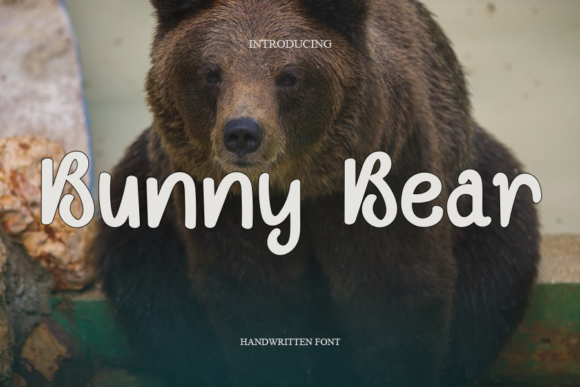
Discover the Whimsy of Bunny Bear Font
As a designer, there’s nothing quite like that moment when an idea clicks – the spark of creativity that sets your imagination ablaze and sends your mind racing with possibilities. For me, it’s often when I stumble upon the perfect font to bring my vision to life. And, let me tell you, Bunny Bear Font is one such find that has left me beaming with excitement.
This lovely script font is designed to add a touch of whimsy and playfulness to your creative projects. Featuring charming, dancing characters that seem to leap along the baseline, Bunny Bear Font is sure to elevate your designs and make them stand out in a crowd. Whether you’re working on a children’s book, a branding project, or a social media campaign, this font is a valuable addition to your design toolkit.
Bunny Bear Font Key Features
- Font Family: Bunny Bear Font is a unique, hand-drawn font designed for creative and whimsical purposes.
- Unique Characteristics: Bunny Bear Font features a playful, cursive design with a mix of rounded and pointed letterforms, giving it a distinctive and eye-catching appearance.
- Character Set: The font includes a comprehensive character set, including uppercase and lowercase letters, numbers, punctuation marks, and special characters, making it suitable for a wide range of applications.
Bunny Bear Font Review
Overall, I’m quite impressed with the Bunny Bear Font. It’s a unique and playful design that’s perfect for kids’ projects, nursery decorations, or any other creative endeavor that needs a touch of whimsy. ✨ The font’s rounded edges and cute bear features make it instantly recognizable and endearing.
One of the strengths of this font is its versatility. It comes in a range of weights, from light to bold, allowing designers to create varying levels of emphasis and contrast. ✨ Additionally, the font is highly customizable, with options to adjust the size, color, and even the bear’s facial expression.
While the Bunny Bear Font excels in many areas, there are a few limitations to consider:
- ⚠️ The font may not be suitable for professional or formal projects, as its playful nature may detract from the intended message.
- ⚠️ The font’s customization options can be overwhelming, making it difficult to achieve a consistent look across different designs.
Despite these limitations, I think the Bunny Bear Font is a valuable addition to any designer’s toolkit. Its unique charm and versatility make it an excellent choice for designers looking to add a touch of personality to their projects.
For best results, use the font in combination with cute and playful graphics to create a whimsical design.
For best results, use the font in conjunction with hand-drawn or vector graphics to create a unique and eye-catching design.
For best results, use the font in combination with cute and playful graphics to create a visually appealing presentation or document.
The Bunny Bear Font is ideal for:
Children’s book covers and illustrations
Party invitations and decorations
Branding and marketing materials for kids’ products and services
Personalized gifts and stationery